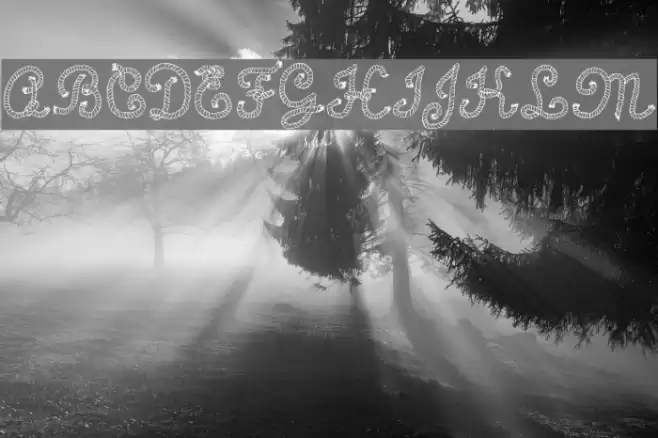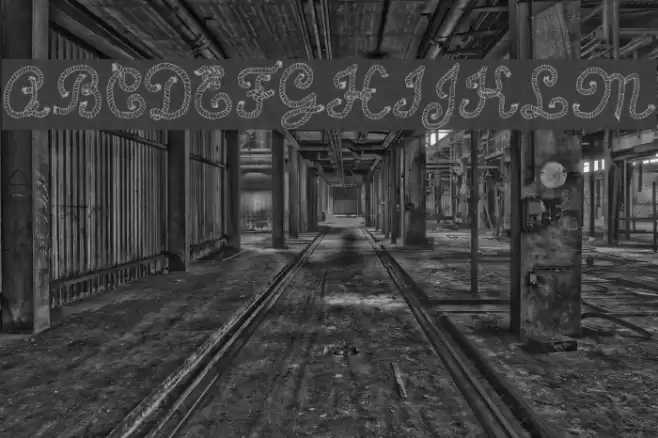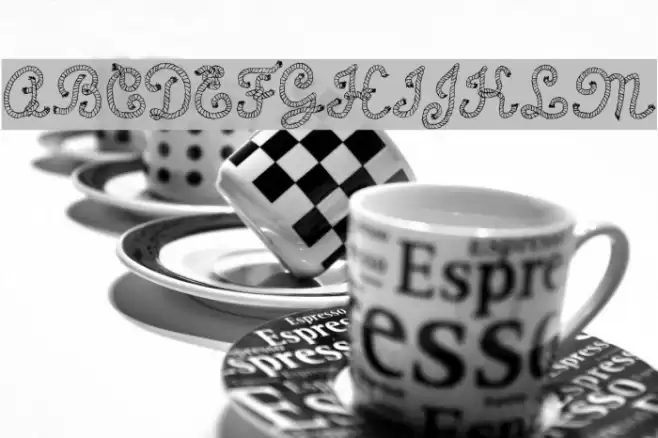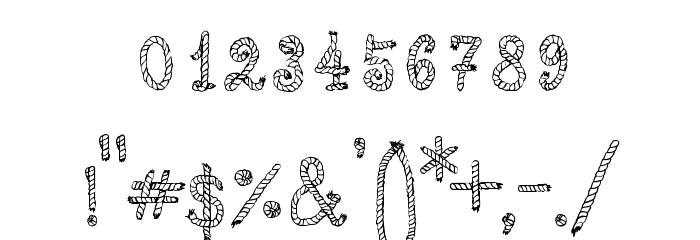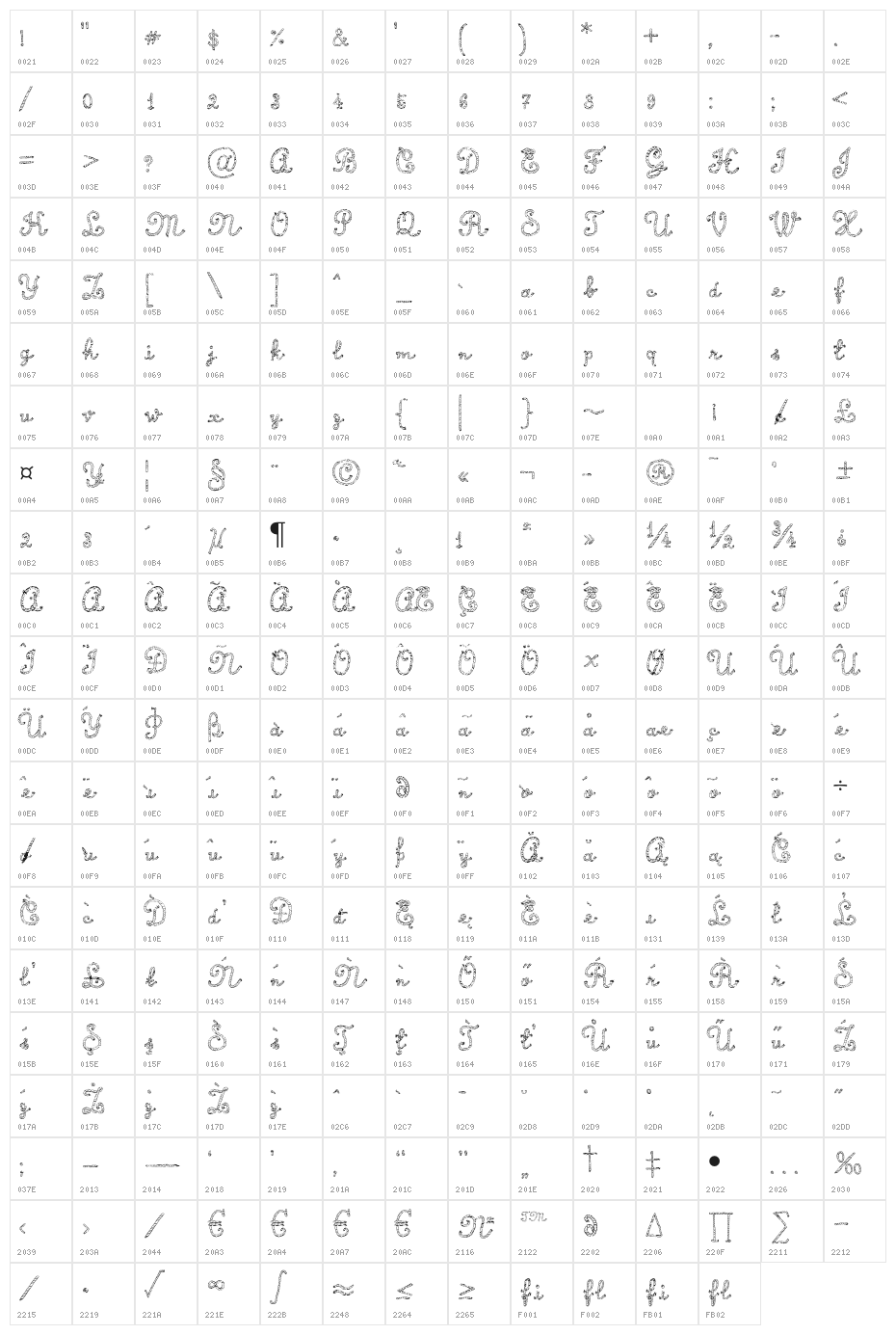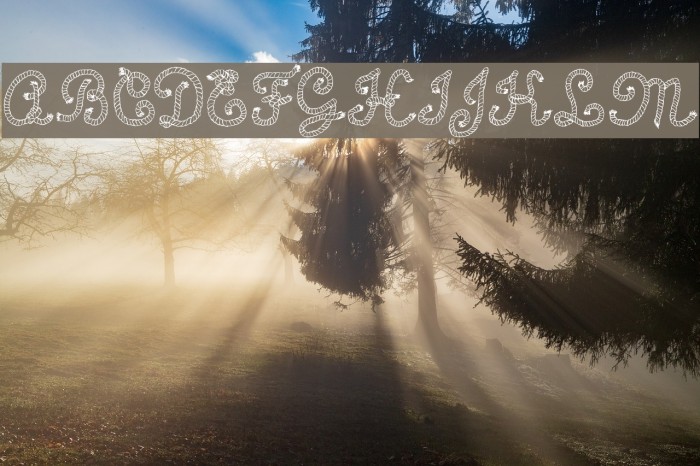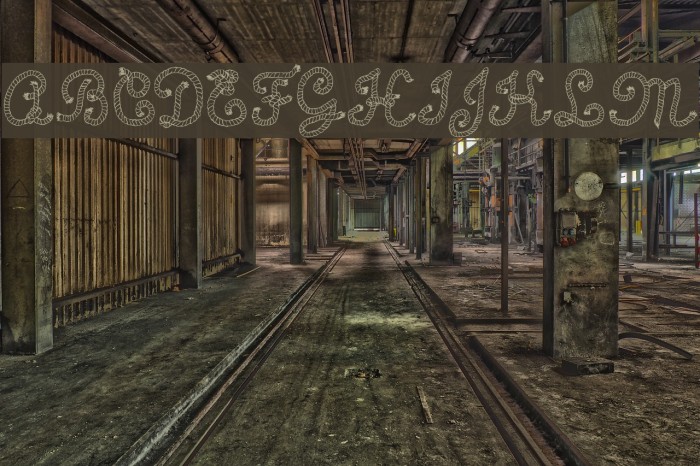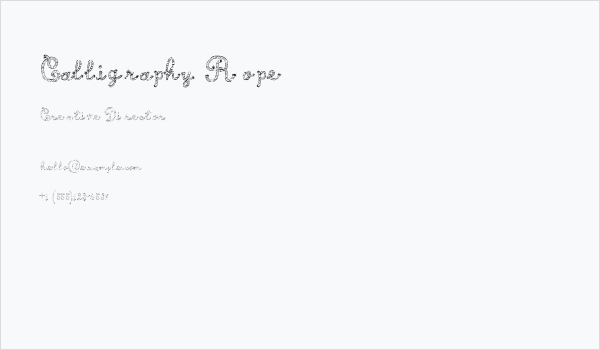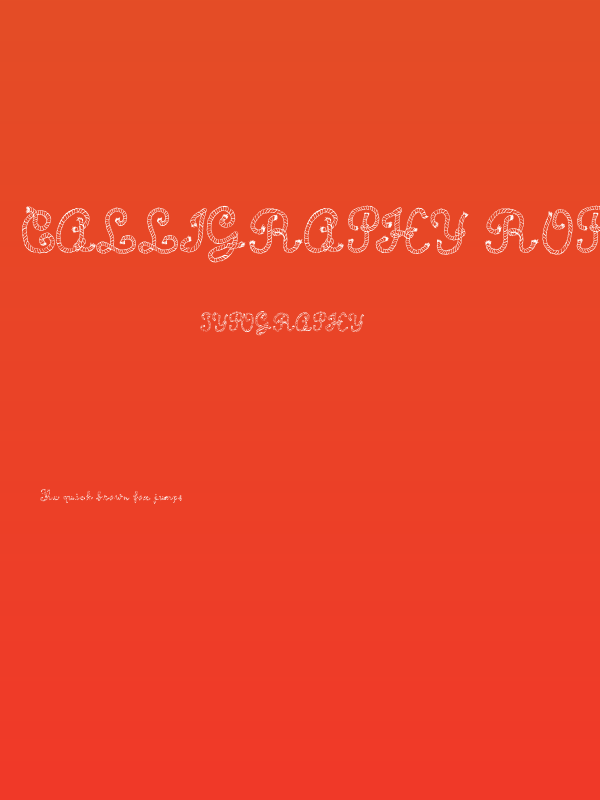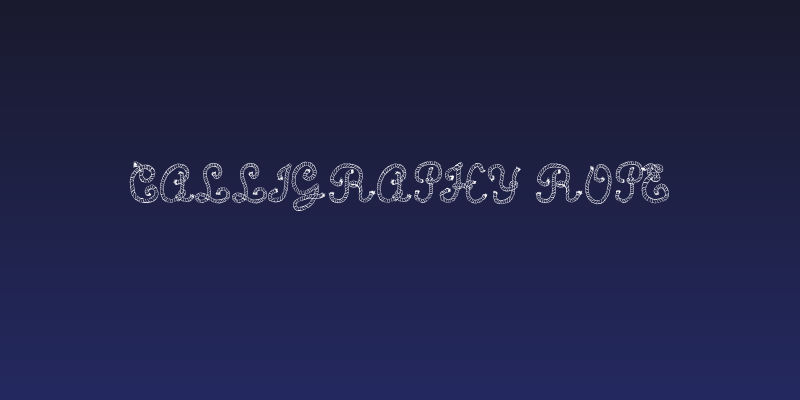
Calligraphy Rope Font
Calligraphy Rope Description
This font features a unique and playful design that mimics the appearance of rope twisted into the shape of letters and numbers. Each character is intricately detailed, with the rope texture adding depth and a three-dimensional feel. The uppercase and lowercase letters maintain a consistent style, with smooth curves and loops that enhance the calligraphic nature of the font. The numerals and special characters follow the same design principles, ensuring a cohesive look across all glyphs. This font's decorative style makes it stand out, offering a whimsical and creative touch to any project.
A playful, rope-textured calligraphic font with intricate details from Uncategorized fonts.
- Proposed Projects: Ideal for creative projects such as invitations, greeting cards, posters, and branding materials that require a unique and artistic touch.
- Use Case: Logos, Headlines, Artistic projects